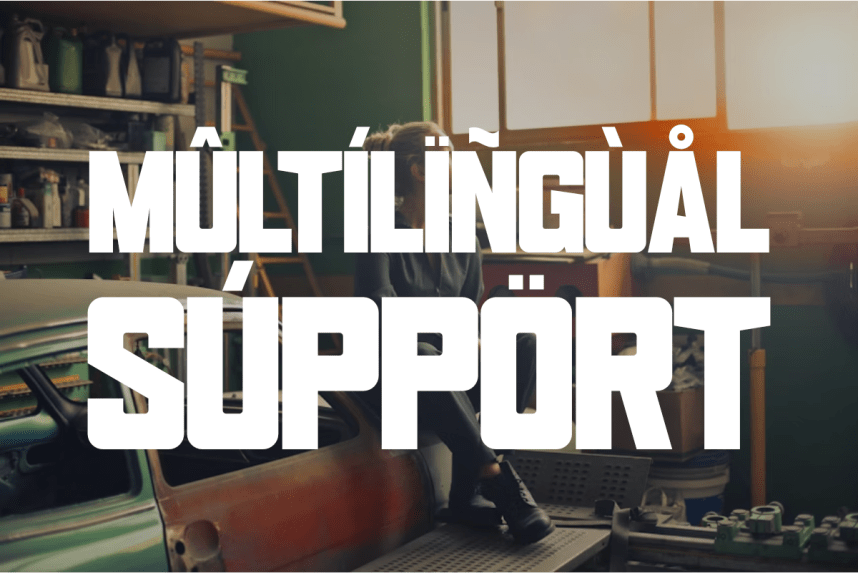
Andrew Sans Serif Font is an ultra-condensed sans serif font with bold and striking letterforms. Designed to create maximum impact in minimal space, Andrew is perfect for powerful headlines, posters, and logos that demand attention. Its tall, dramatic proportions and clean cuts make it ideal for sports designs, urban branding, fashion statements, movie titles, album covers, and product packaging.
Whether for advertising, editorial layouts, or digital media, Andrew delivers a confident and modern edge to any creative project.